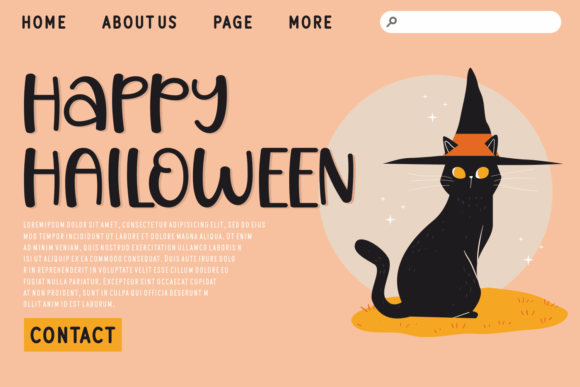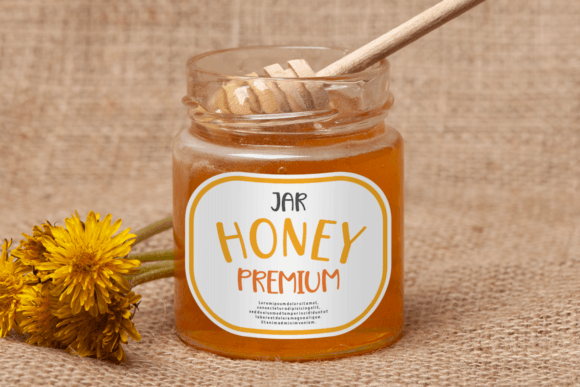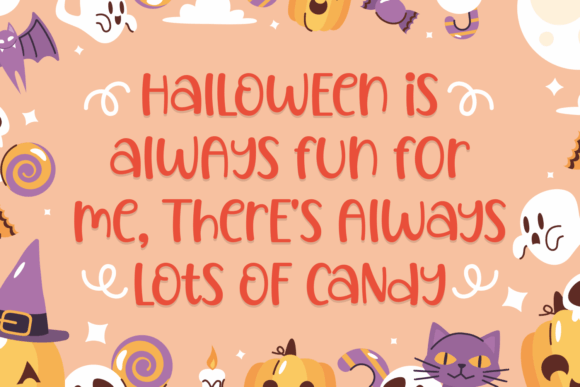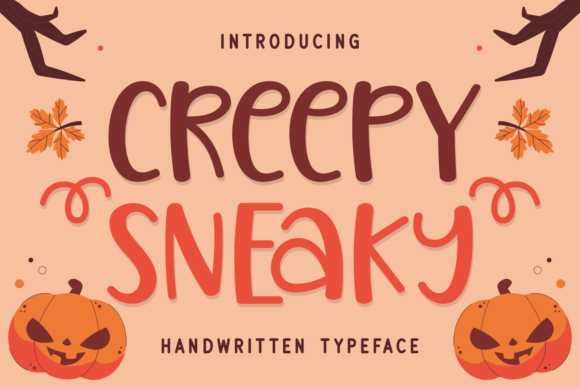
Introduction to Creepy Sneaky Font
Creepy Sneaky is a fun and playful handwritten font suited for creations that need lively typography.
Try it on Halloween posters, party invitations, banners, branding, or more .
Creepy Sneaky Font offers exceptional quality and versatility, making it a valuable addition to your design toolkit. Whether you’re creating for personal projects or commercial use, Creepy Sneaky Font delivers professional results.